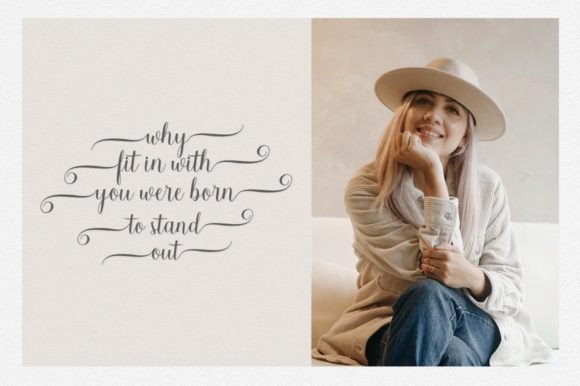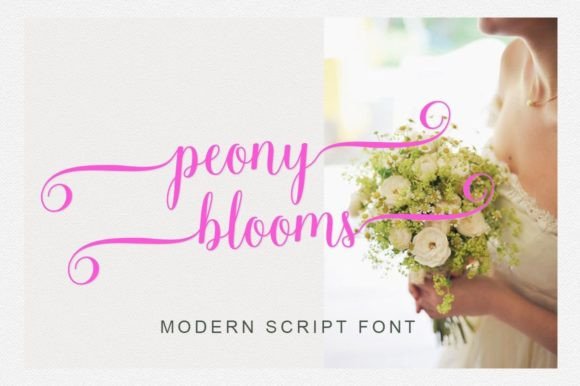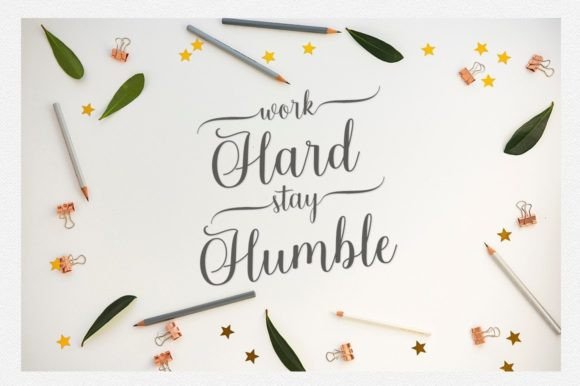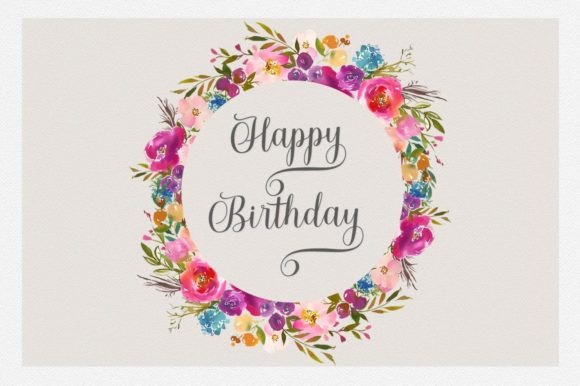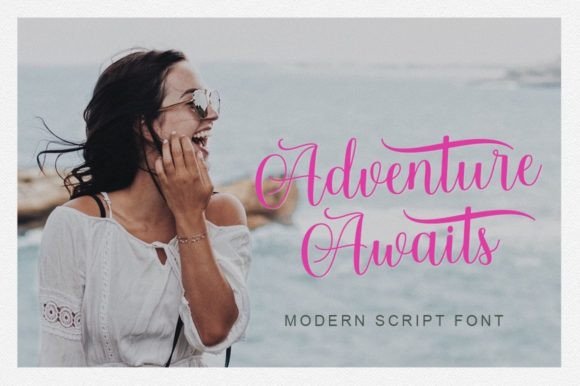
Yulita Font
About Yulita Font
Yulita is a dazzling script font that stands out for its meticulous craftsmanship and intricate details. With its neatly crafted and highly detailed design, Yulita is a wonderful asset to add to your font library, as it possesses the potential to elevate and enhance a wide range of creative projects.
The dazzling quality of Yulita is apparent in its script style, which exudes elegance and sophistication. Each letter is carefully designed, contributing to an overall aesthetic that is not only detailed but also visually striking. This makes Yulita a versatile choice for various topics and design themes.
The font’s PUA encoding is a valuable feature, ensuring easy access to all glyphs and swashes. This enhances your creative freedom, allowing you to customize and embellish your designs with a range of decorative elements. Whether you’re working on branding, invitations, posters, or any other creative endeavor, Yulita provides the tools for a personalized and unique touch.
Incorporate Yulita into your font collection and witness how it transforms your creations. From elegant invitations to eye-catching posters, this dazzling script font has the potential to add a touch of sophistication and charm to a wide array of design projects. Let Yulita be the font that enhances your creative vision with its detailed and captivating style.